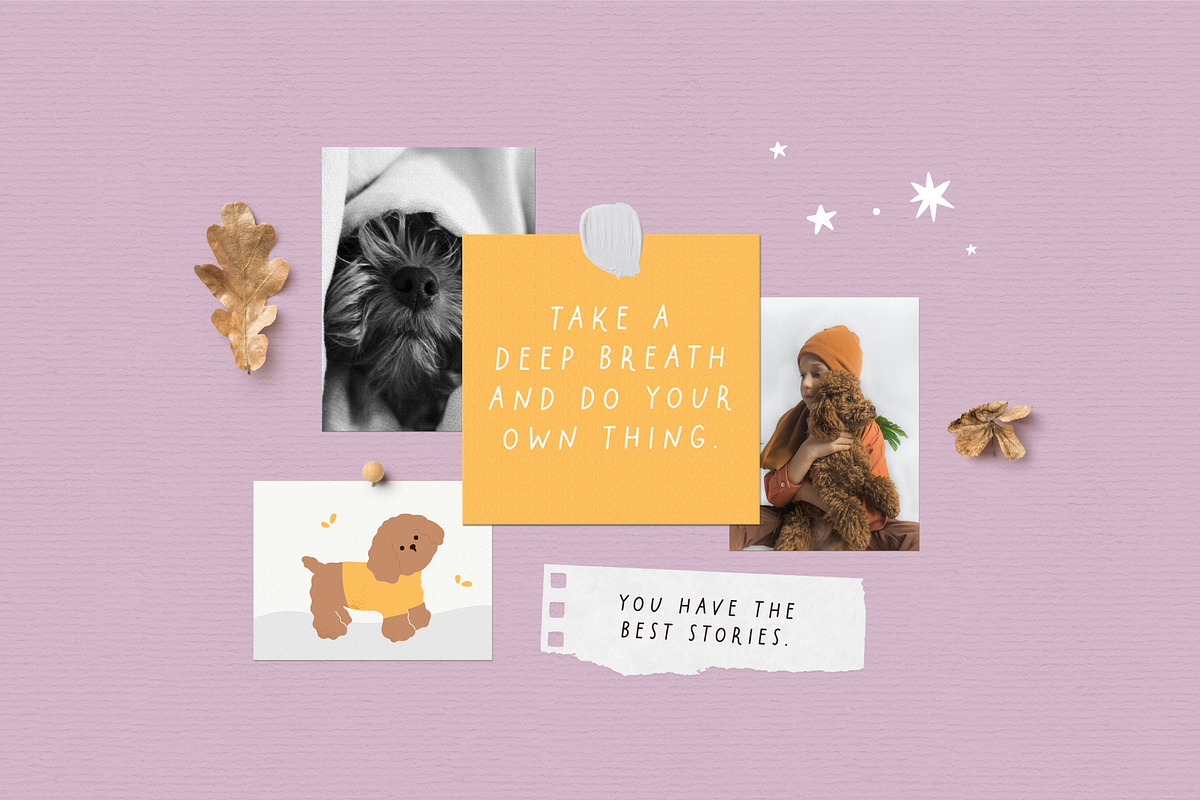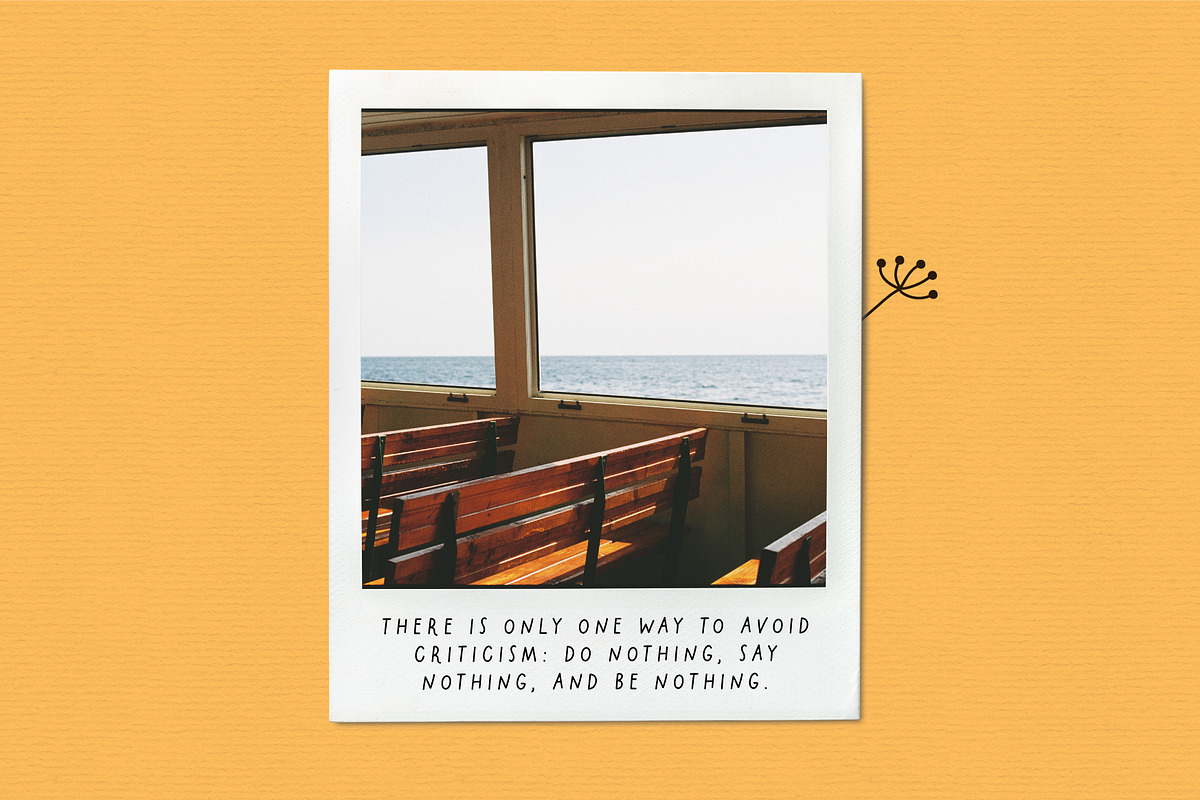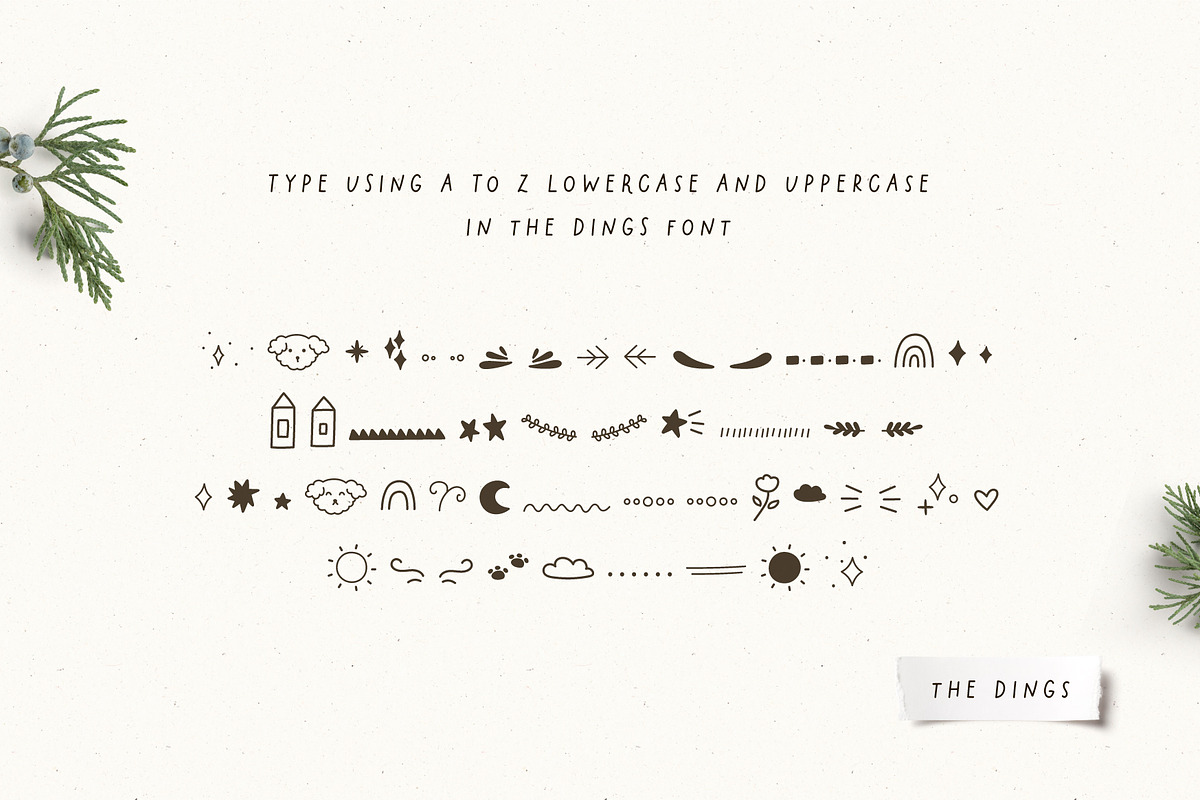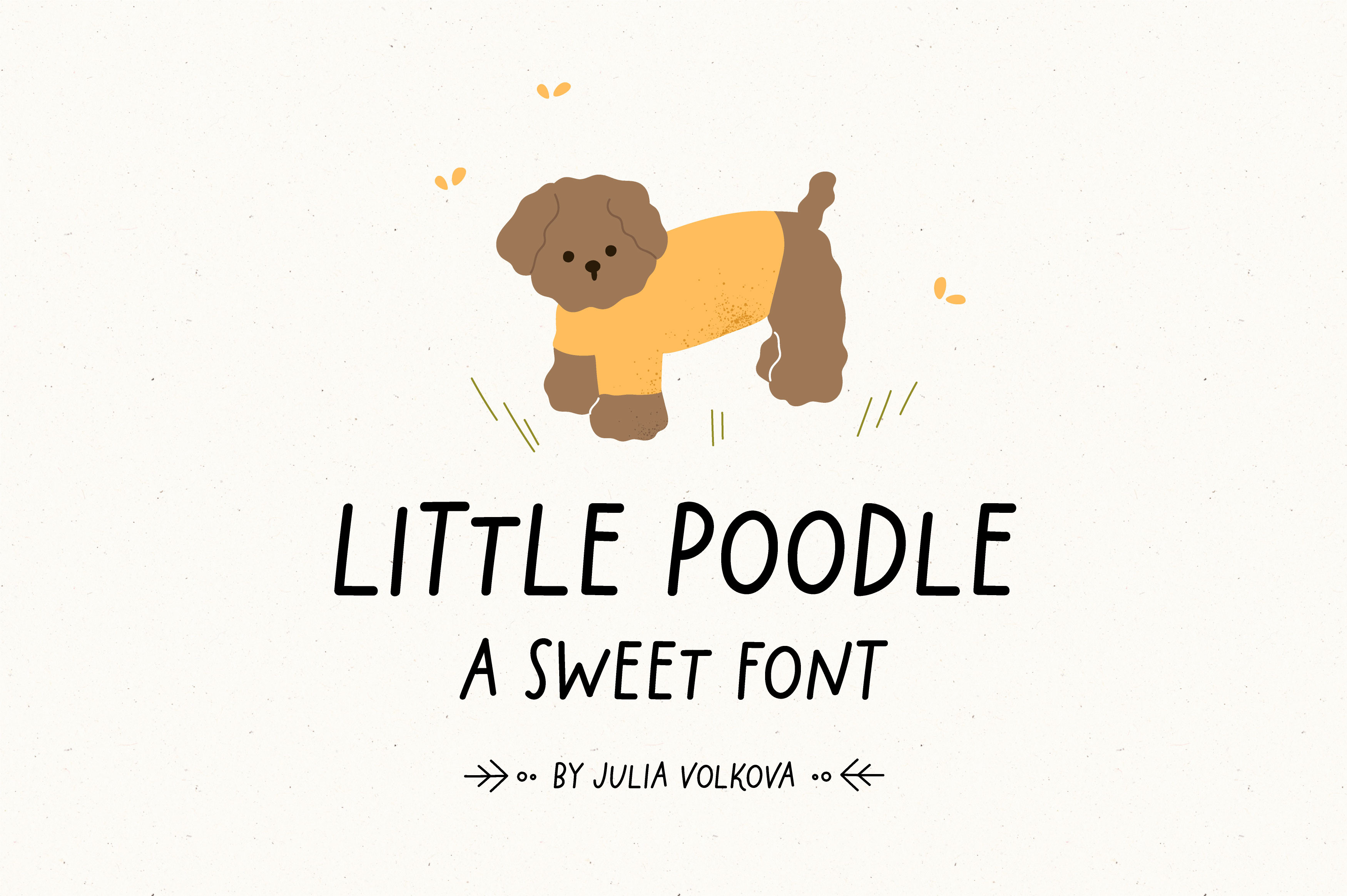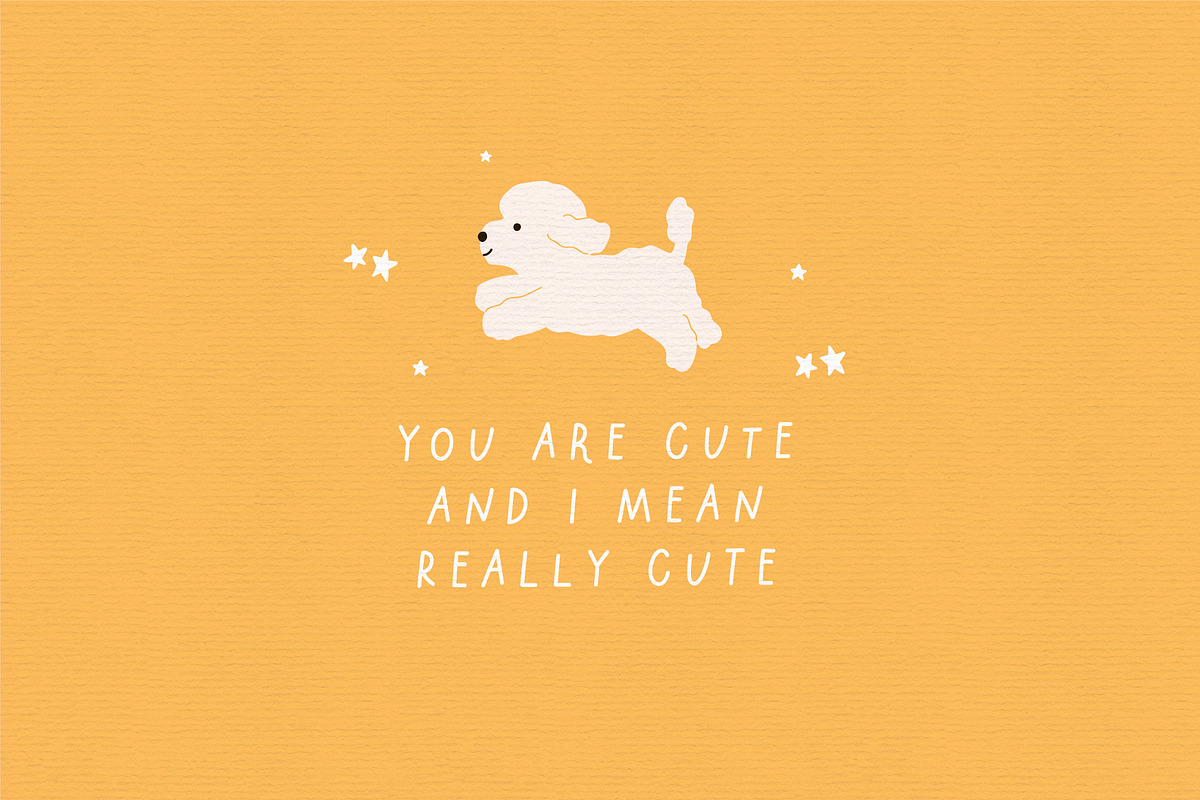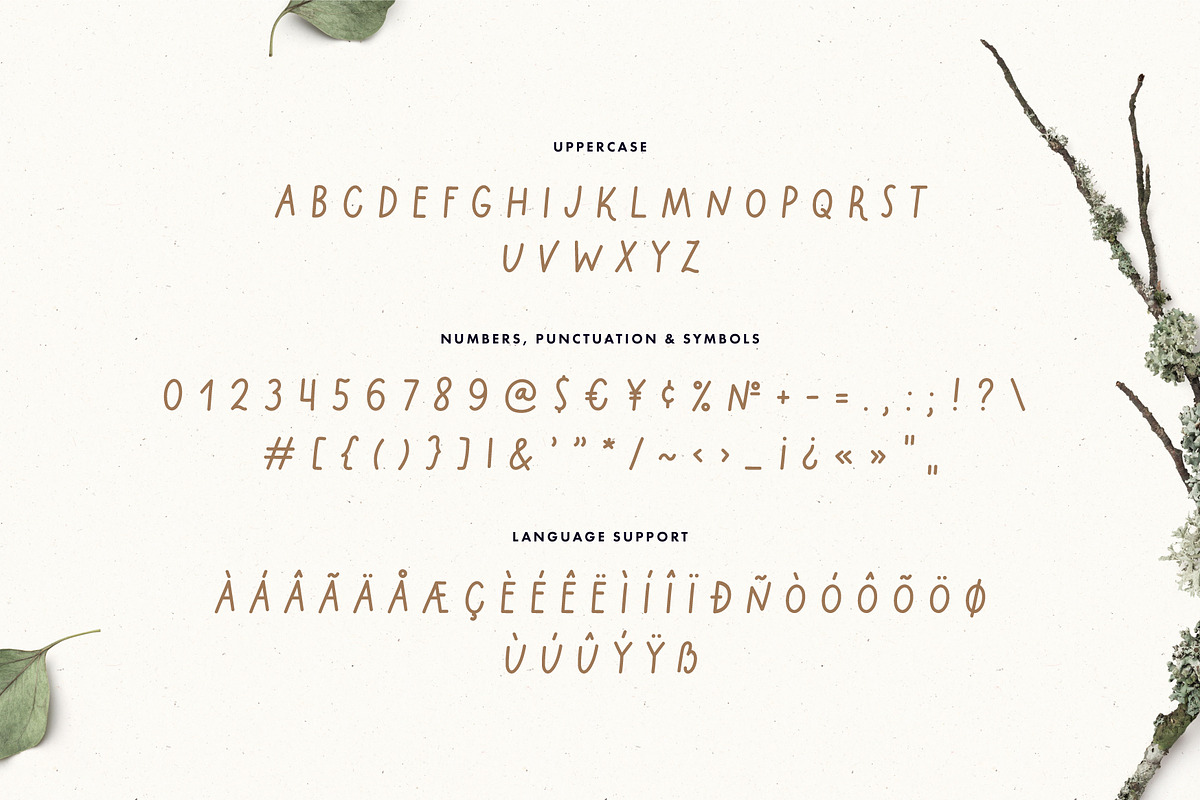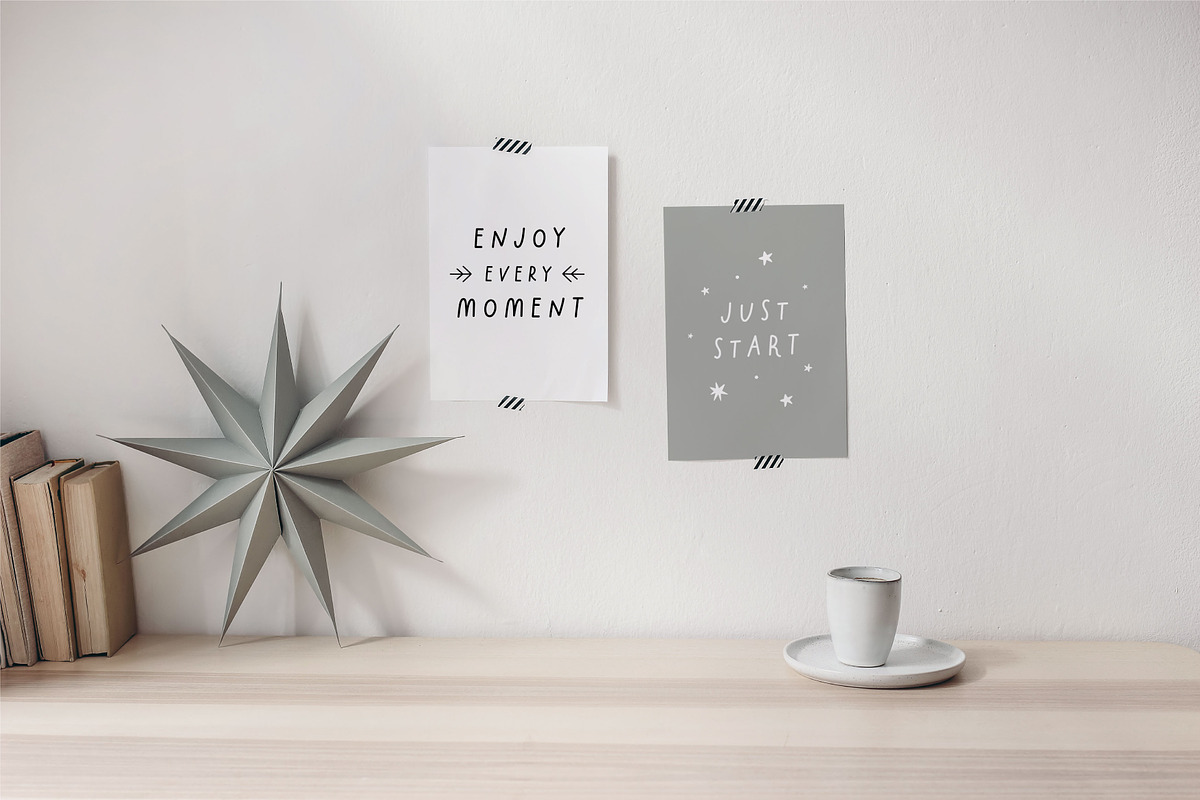
Little poodle | Sweet font
Little Poodle will be perfect logos, quotes, invitations, greeting cards, journals, posters, baby clothing and more. This font will make your design looks great and fun!